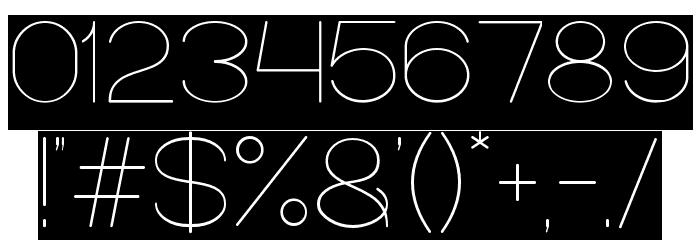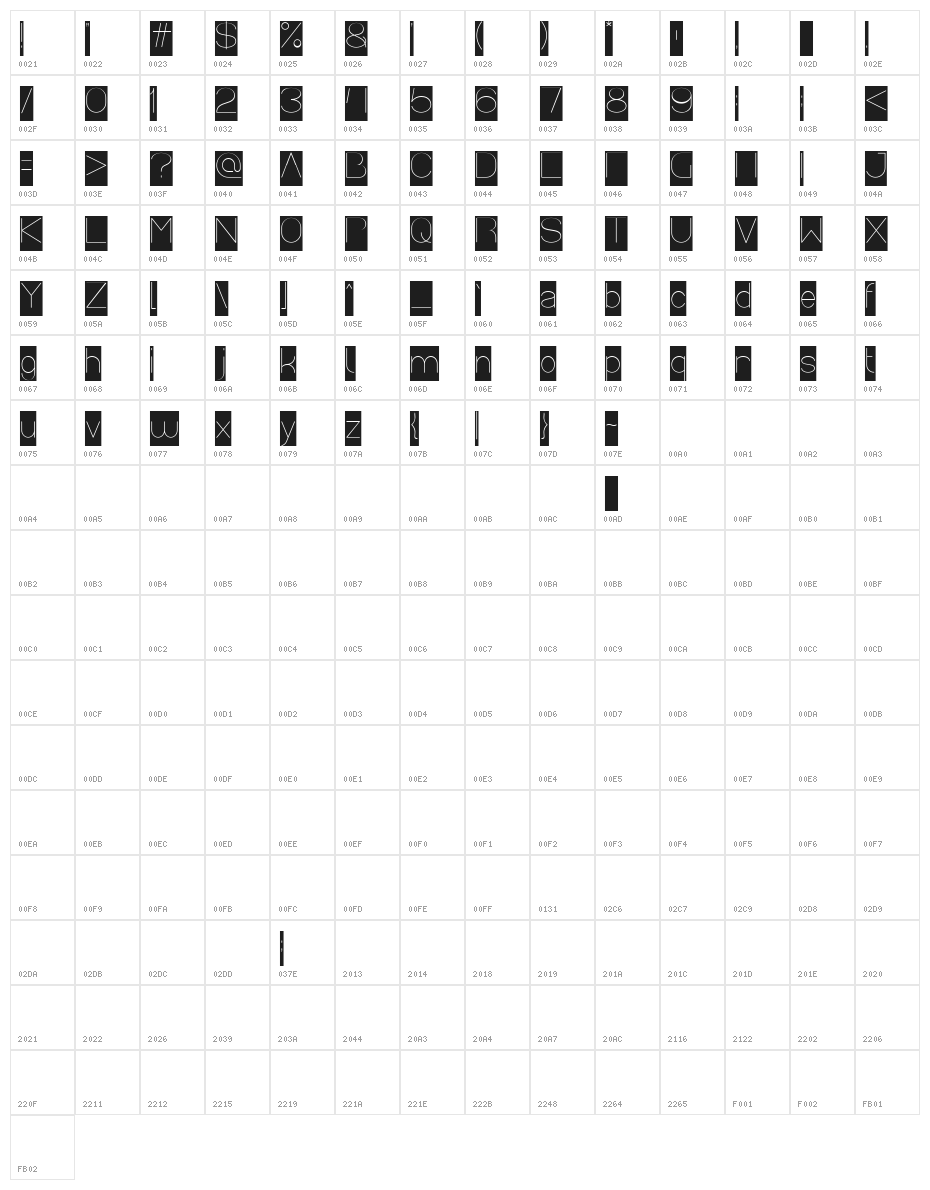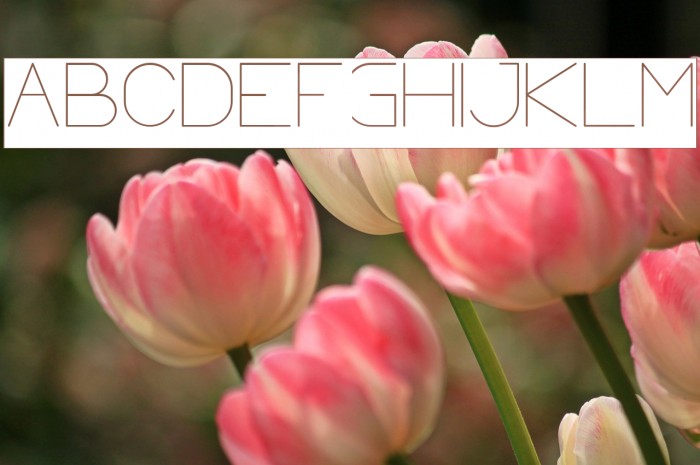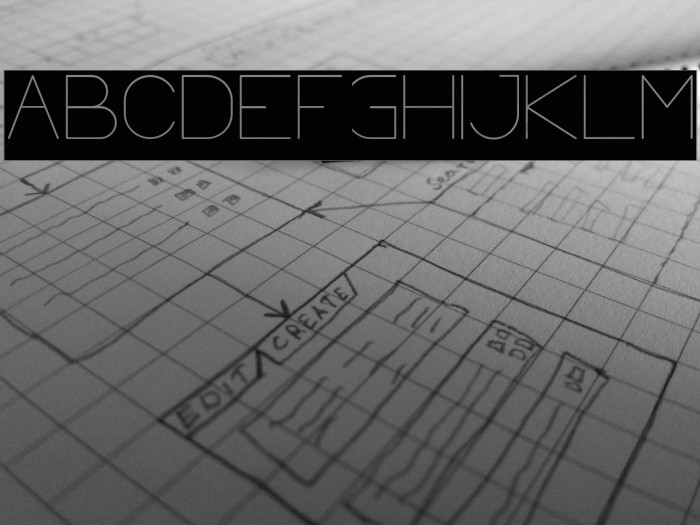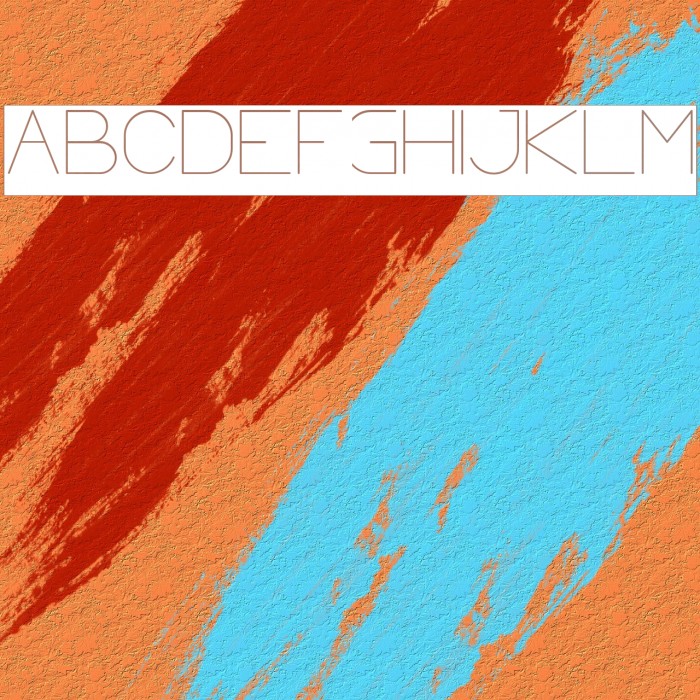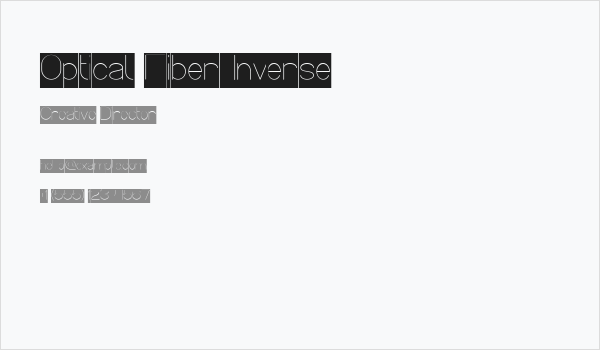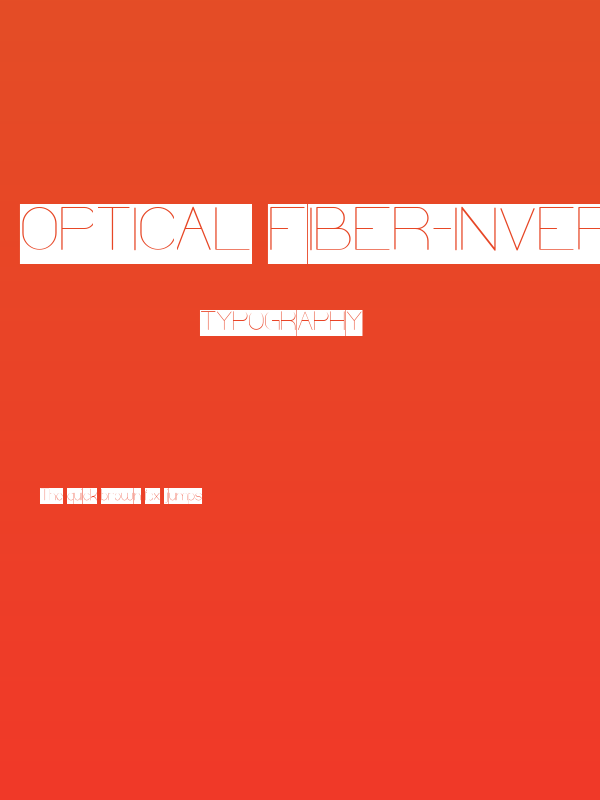
Optical Fiber-Inverse Font
Optical Fiber-Inverse Description
This font features a sleek and modern design with a geometric structure. The characters are composed of thin lines with a consistent stroke width, giving it a minimalist and futuristic appearance. The uppercase and lowercase letters maintain a uniform height, contributing to its clean and orderly look. The numerals and special characters are designed to match the overall aesthetic, ensuring a cohesive appearance across all elements. The font's simplicity and elegance make it suitable for contemporary design projects.
| Proposed Projects | Ideal for tech branding, modern websites, minimalist posters, and futuristic design themes. |